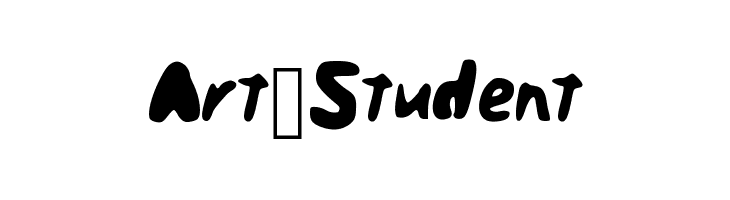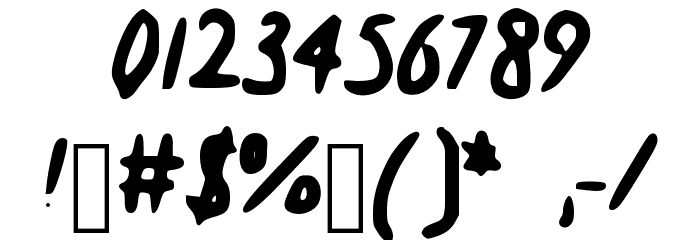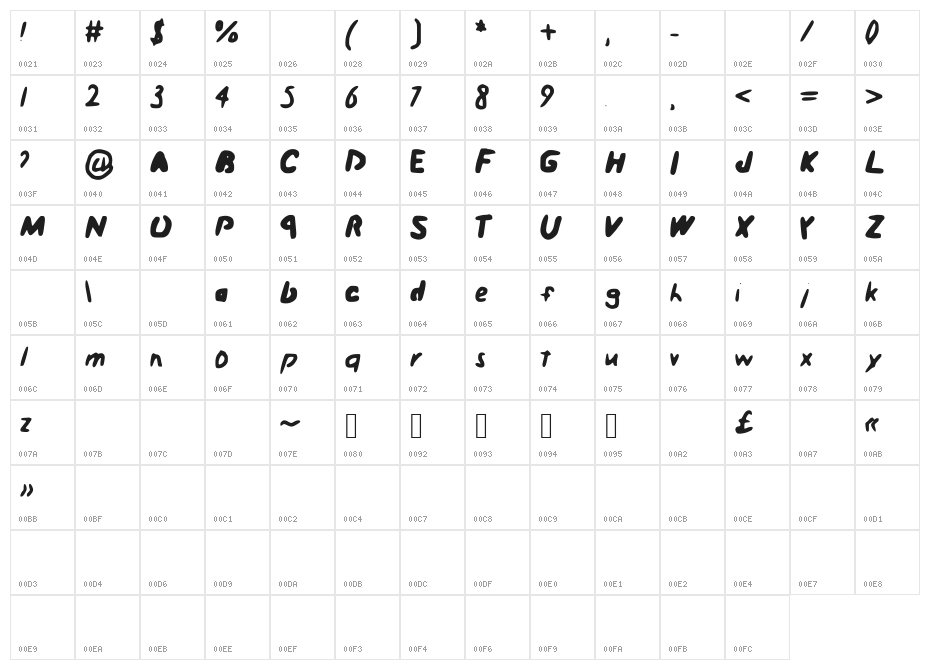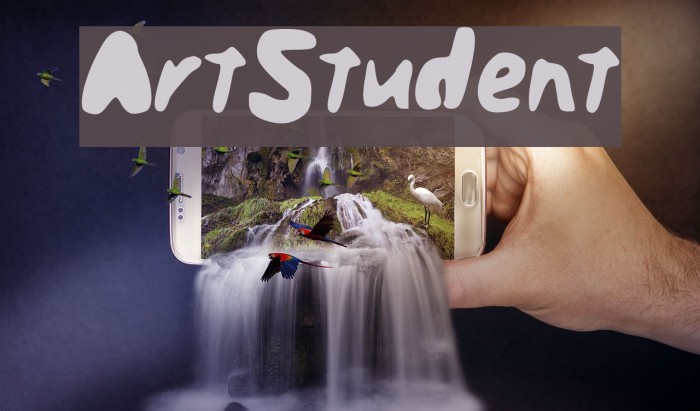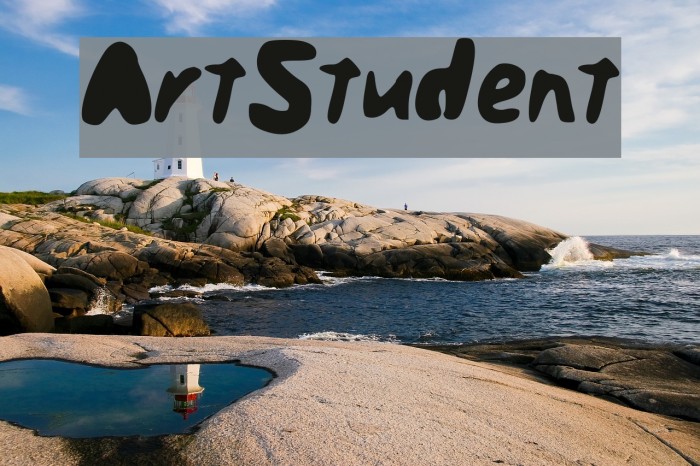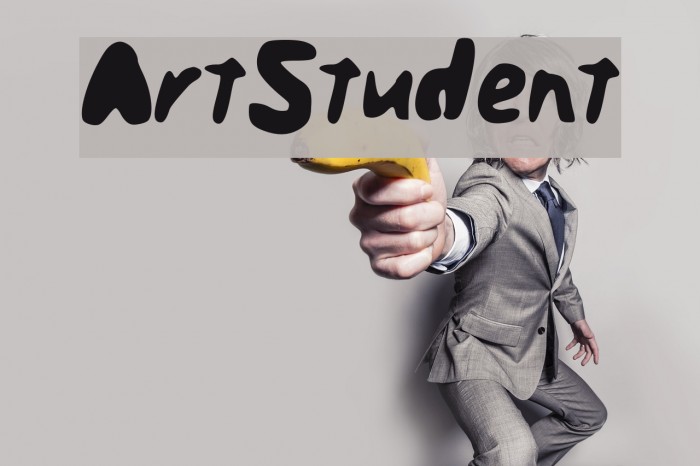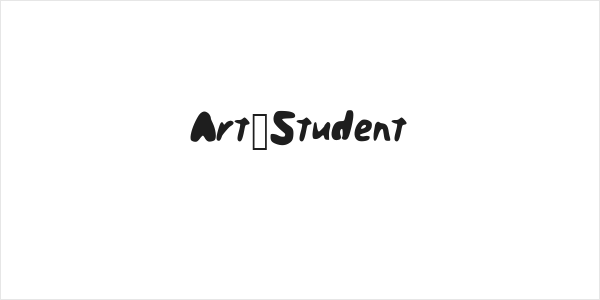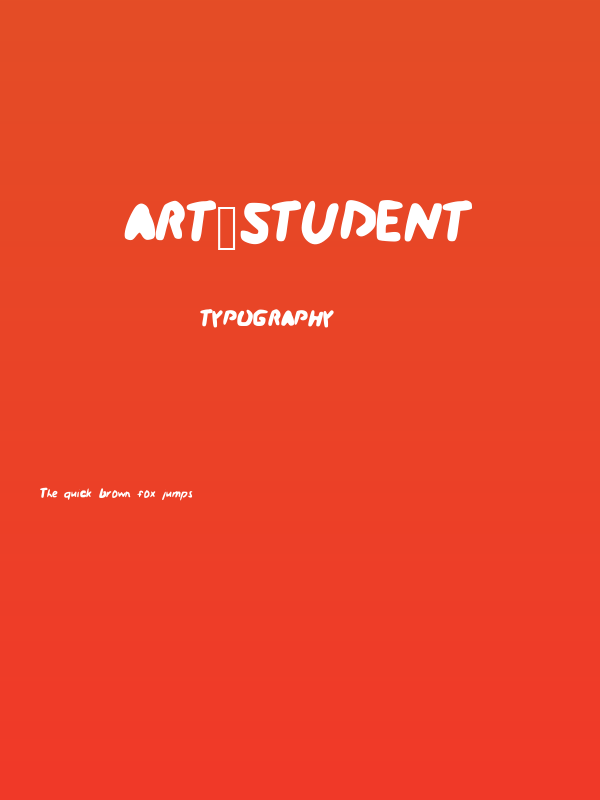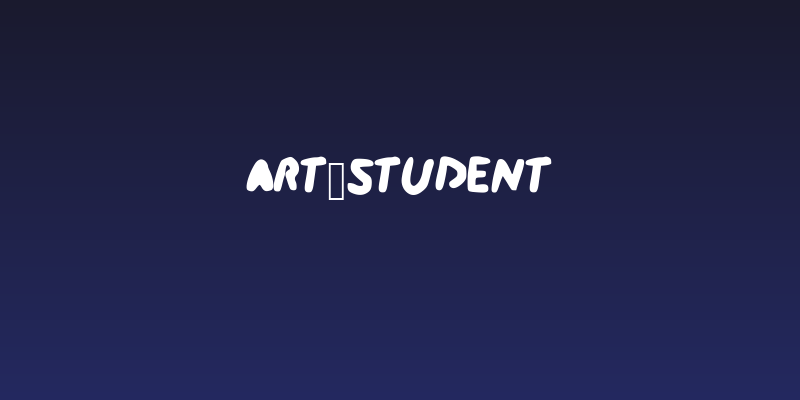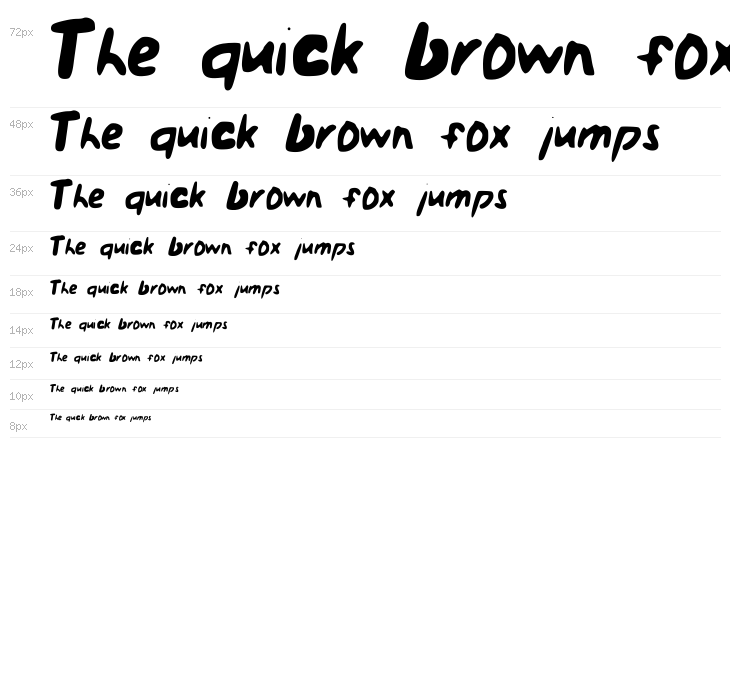
Art_Student Font
Art_Student Description
This font exudes a playful and artistic vibe, characterized by its bold and rounded letterforms. The strokes are uneven, giving it a hand-drawn appearance that adds a personal touch. The uppercase and lowercase letters maintain a consistent style, with a slightly exaggerated curvature that enhances its whimsical nature. The numbers and special characters follow the same design principles, ensuring uniformity across all elements. This font is ideal for projects that require a creative and informal look, such as children's books, art projects, or casual branding.
| Proposed Projects | Children's books, art projects, casual branding, creative posters. |